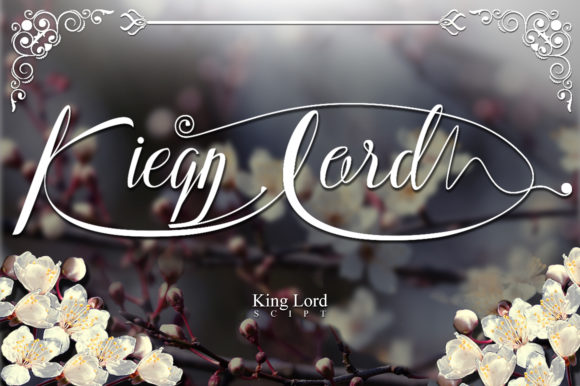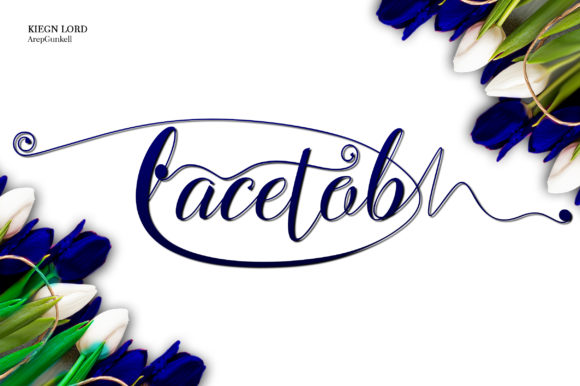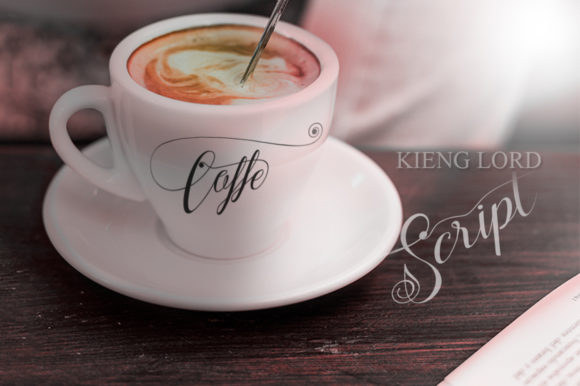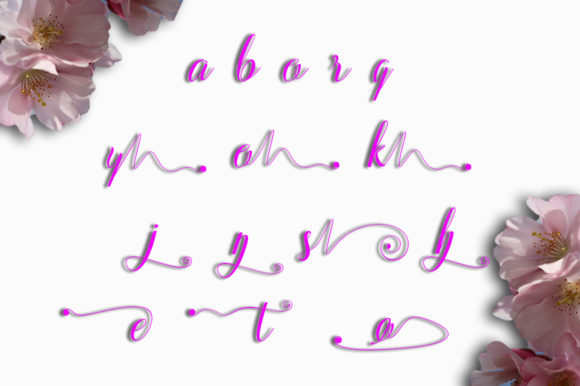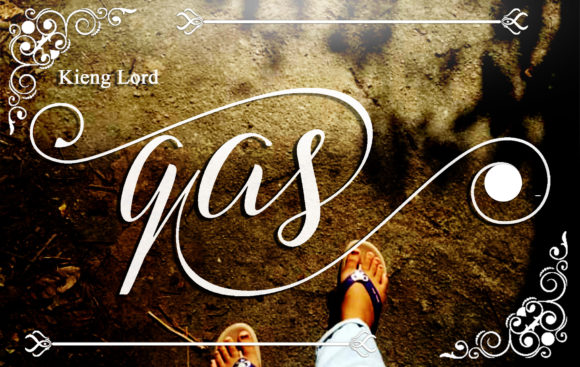
Kieng Lord Font
About Kieng Lord Font
Kieng Lord is a simple and casual handwritten font with an undeniably clean feel. With its neat and beautiful arrangement of letters, this typeface will look outstanding in both formal and non-formal designs.